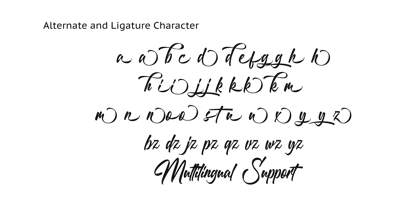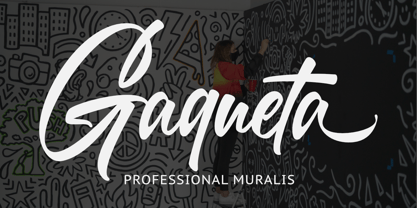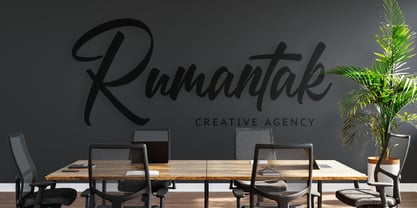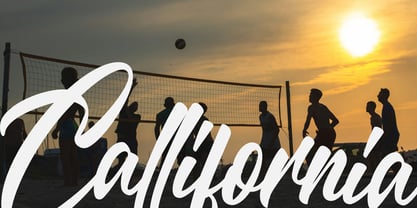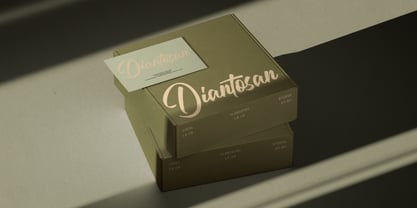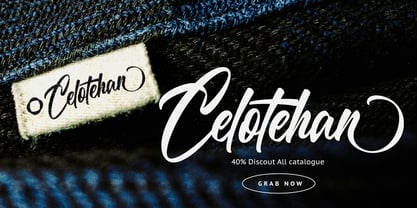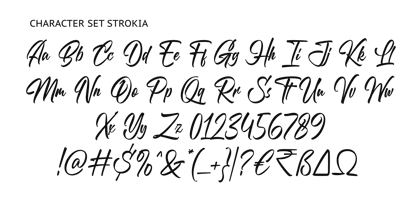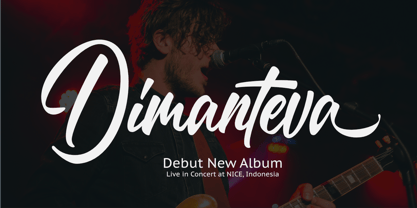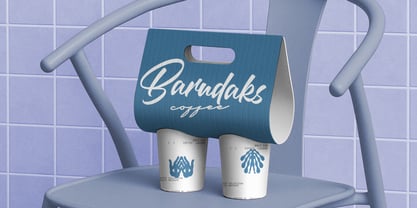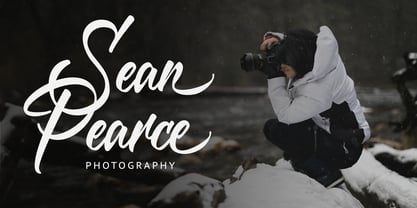
Strokia
The Strokia Font Family was designed by Randi Ilhamsyah and published by RNDI Type Foundry. Strokia contains 1 styles. More about this family
Strokia is a bold, expressive brush script font designed for creatives who want their work to stand out. Inspired by the fluid motion of hand-lettering, every stroke carries energy and personality — from the sweeping capitals to the smooth, connected lowercase.
Built for versatility, Strokia shines across branding, packaging, poster design, apparel, photography watermarks, and social media content. Its natural rhythm and confident strokes make it equally at home on a luxury product label or a street-style merchandise drop.
With Adobe Latin 5 unicode support, Strokia is ready for multilingual projects across 100+ languages.